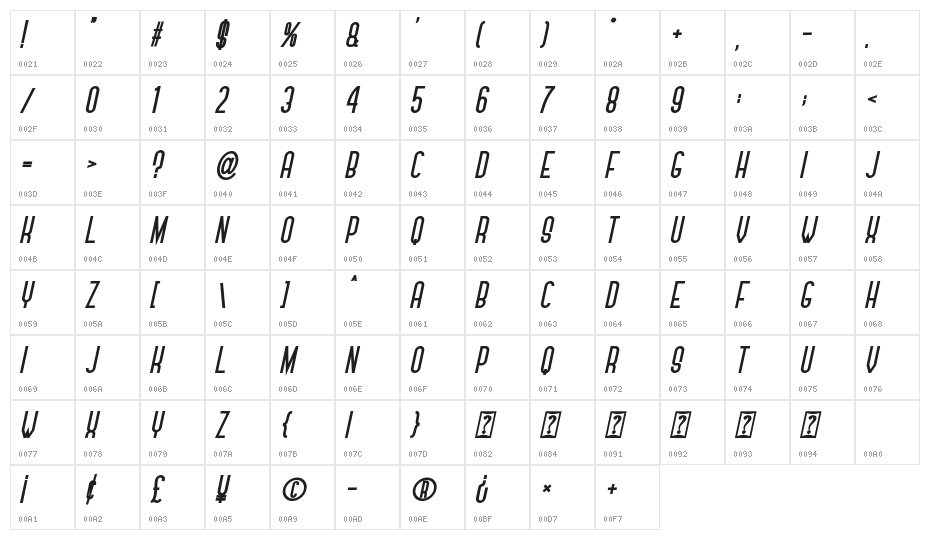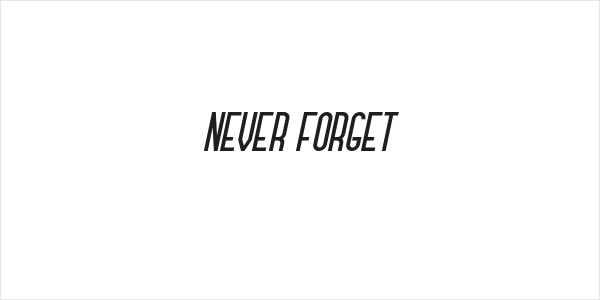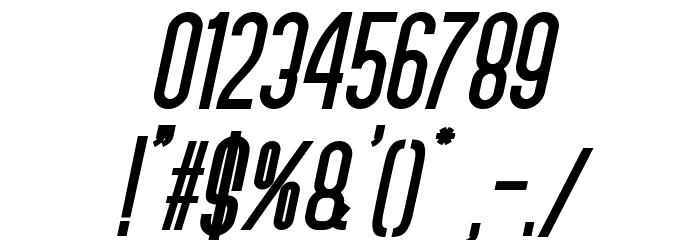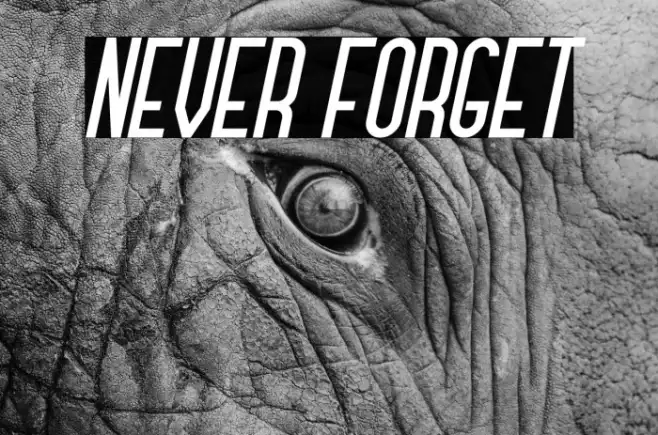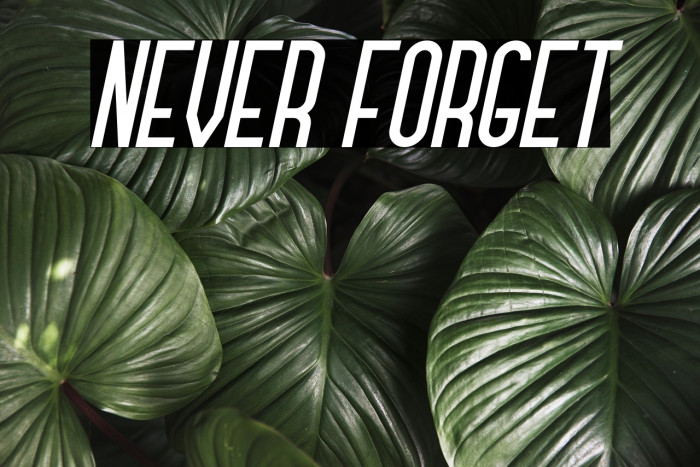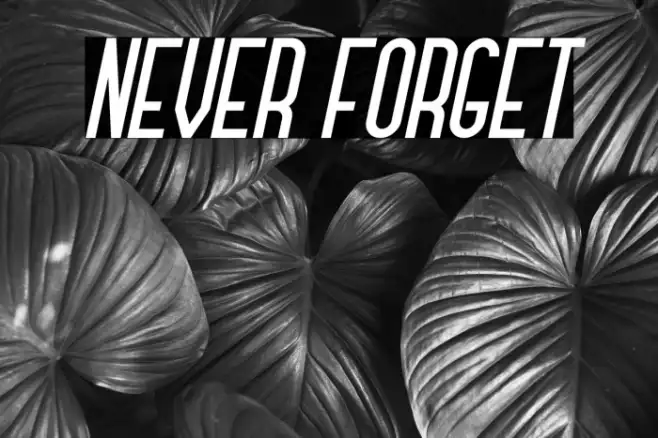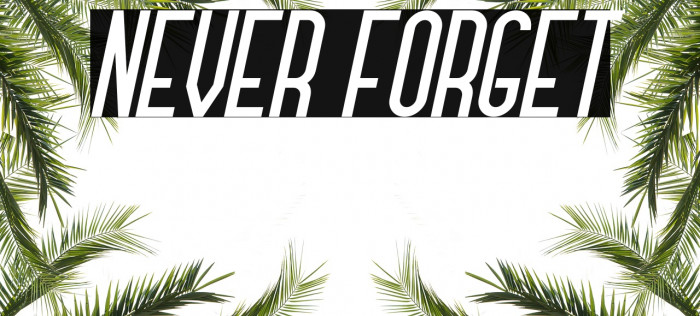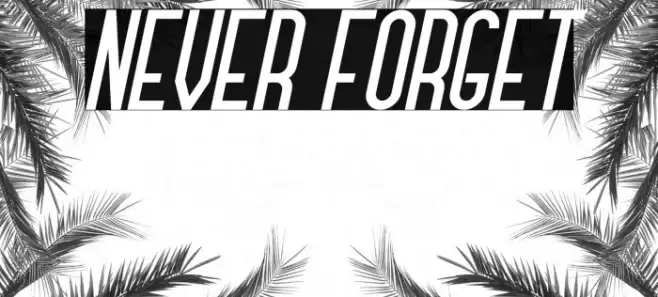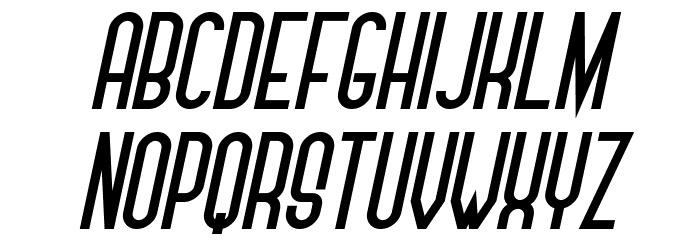
Never Forget Font
Never Forget Description
This font features a bold and dynamic style with a forward-leaning slant, giving it a sense of motion and urgency. The characters are tall and narrow, emphasizing verticality and creating a sleek, modern appearance. The strokes are consistent in weight, contributing to a uniform look across all characters. The uppercase and lowercase letters maintain a cohesive design, with sharp angles and clean lines. The numerals and special characters are equally bold, ensuring readability and impact. Overall, this font exudes a contemporary and energetic vibe, making it suitable for attention-grabbing designs.
| Proposed Projects | Ideal for sports branding, dynamic posters, modern advertising, and impactful headlines. |